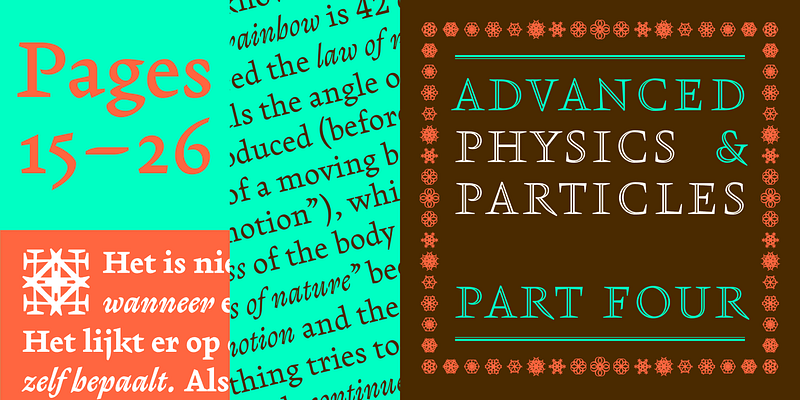
Kristal Font Free Download
Kristal Font Free Download is a beautifully sophisticated serif typeface that blends elegance with geometric precision. Designed for high-end editorial work, branding, packaging, and luxury design, Kristal offers a striking mix of sharp serifs, clean lines, and refined contrast that immediately elevates any layout.
With its graceful curves and sculpted letterforms, Kristal Font Free Download works beautifully in large display sizes—think magazine headlines, fashion lookbooks, perfume packaging, or premium websites. It brings a bold yet refined energy, making your text feel both commanding and graceful at the same time.
Kristal often comes with alternate characters, ligatures, and stylistic sets, allowing for customized typographic expression. Whether you're creating elegant logos or curating a modern design system, this font gives you the creative flexibility to craft something visually stunning.
Elegant, expressive, and endlessly versatile—Kristal is a designer’s gem, ideal for those who want to communicate beauty, sophistication, and luxury through type.